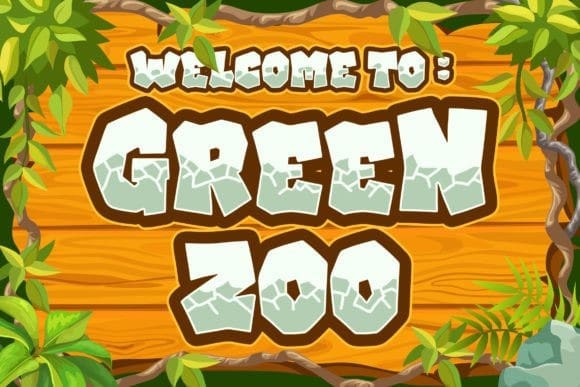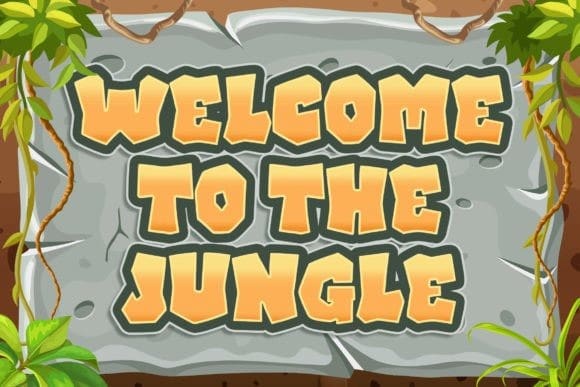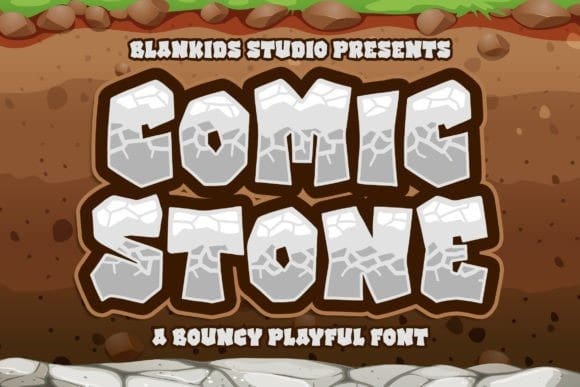
Comic Stone Font
Comic Stone Font is a bouncy and playful display font inspired by playful stone-style typography. It is suitable for book covers, children’s books, comics, posters, packaging, merchandise, logotype, and much more.